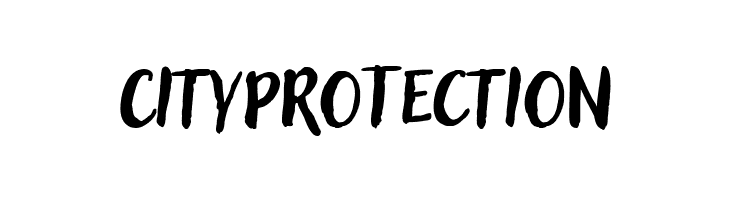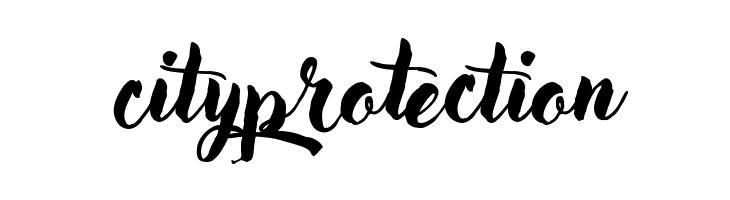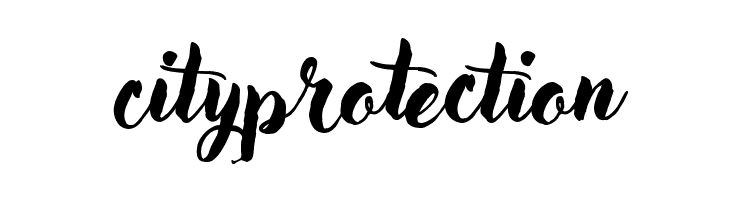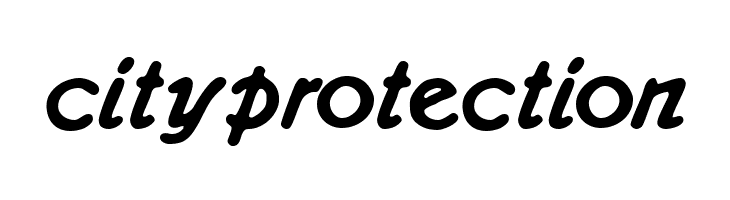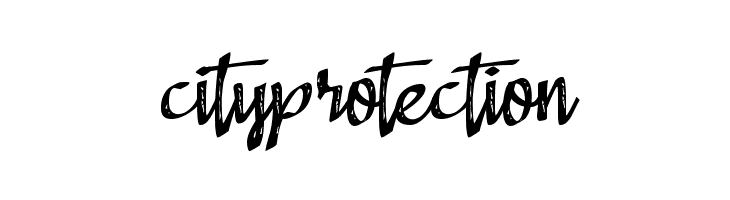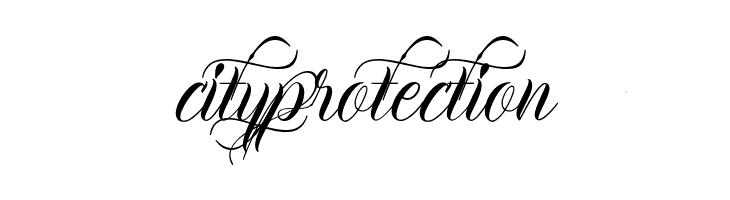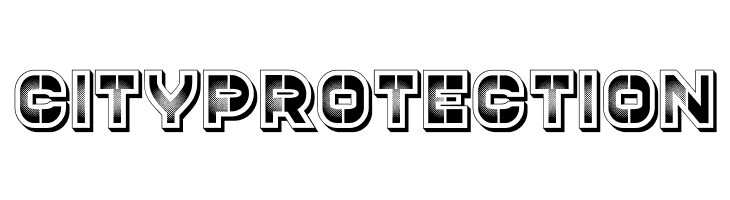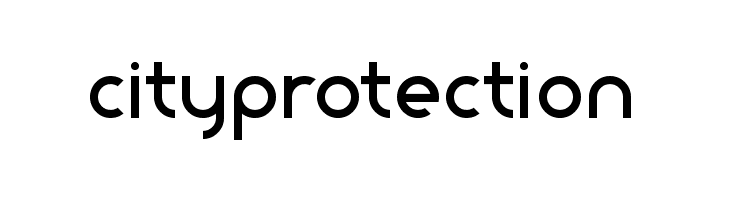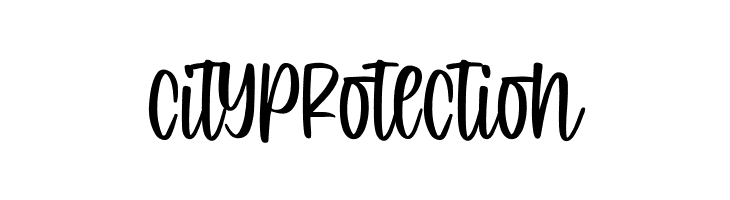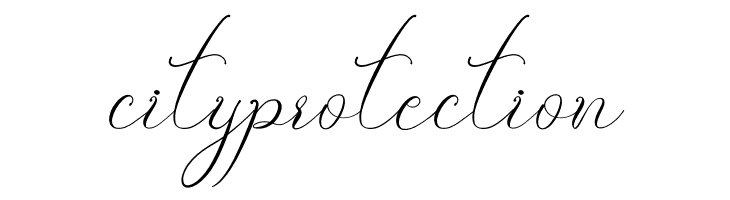
A dynamic, cursive font with elegant, sweeping strokes and a modern calligraphic style.
A bold, expressive handwritten font with brush-like strokes.
A bold, handwritten font with a dynamic and playful style.
A graceful and elegant script font with flowing, interconnected letters.
An elegant script font with flowing, interconnected cursive letterforms.
A modern, elegant script font with a flowing, handwritten style.
A bold, expressive script font with a hand-drawn, cursive style.
A bold, hand-painted style font with dynamic, slanted characters.
A bold, expressive script font with ornate swashes and flowing cursive letterforms.
A lively, handwritten font with fluid strokes and a dynamic style.
A dynamic and fluid handwritten font with elegant cursive letterforms.
A lively handwritten font with fluid strokes and playful character.
A bold, playful script font with interconnected, rounded characters.
A bold, cursive font with a playful and flowing style.
A dynamic and expressive handwritten font with fluid strokes.
An elegant script font with flowing, cursive strokes and intricate loops.
A graceful script font with flowing, cursive strokes.
An elegant script font with intricate swashes and a sophisticated style.
A sophisticated script font with elaborate flourishes and high contrast strokes.
A modern font with geometric and calligraphic elements, offering elegance and versatility.
A modern serif font with elegant, elongated letterforms and sharp serifs.
A bold, modern font with sharp serifs and high contrast, perfect for striking designs.
A modern, geometric font with clean lines and a futuristic aesthetic.
A modern, geometric font with clean lines and rounded edges.
An elegant, flowing script font with intricate loops and high contrast.
A bold, angular font with geometric shapes and a dynamic style.
A bold, geometric font with Greek-inspired, angular characters enclosed in squares.
A bold, three-dimensional font with a gradient fill and sharp edges.
A bold, playful handwritten font with smooth curves and a dynamic slant.
An elegant script font with high contrast and ornate flourishes.
A playful, bold font with rounded characters and a whimsical style.
A playful, handwritten font with rounded, consistent strokes and a casual, friendly appearance.
A cursive, handwritten font with elegant curves and a decorative style.